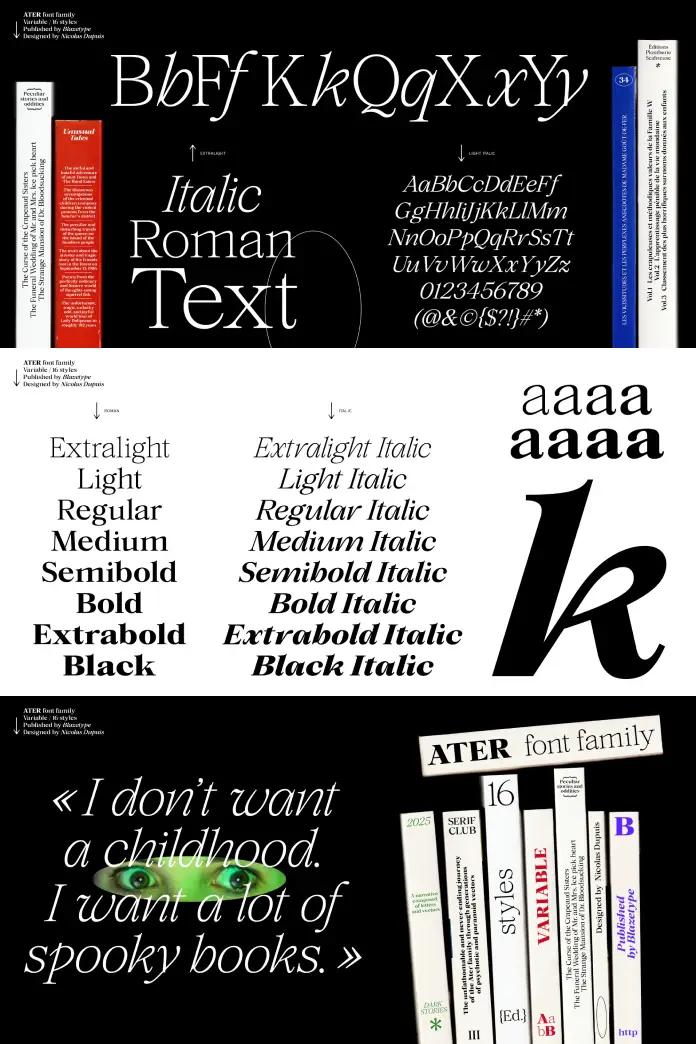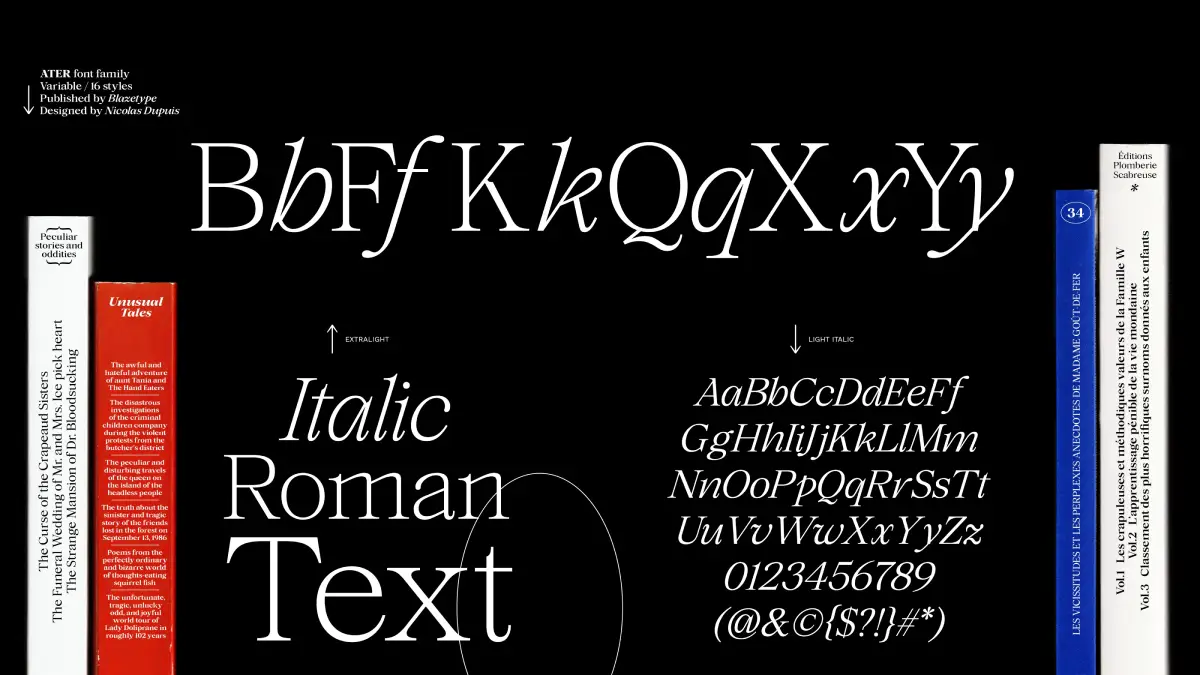
Let’s explore why the Ater font family, a variable serif typeface, works so well for modern editorial design.
Nicolas Dupuis understood the power of ink when he created the Ater font family. Black ink defines the character of every printed page. Blaze Type released this typeface to solve a specific problem in graphic design. Designers often struggle to find a system that works for both loud posters and quiet pocketbooks. The typeface bridges this gap with remarkable elegance. It refuses to choose between classic serif tradition and modern display aggression. Instead, this typeface inhabits the ambiguity between the two styles. This article examines the technical and aesthetic reasons why the Ater font family deserves attention.
What distinguishes the Ater font family from other serif typefaces?
Most serif typefaces pick a side. They either serve as invisible text faces or demand attention as display fonts. However, the Ater font family rejects this binary limitation. Nicolas Dupuis designed the forms to adapt seamlessly across different media formats. A designer can use the same font file for a billboard or a novel. Consequently, this versatility simplifies the design process significantly. The family unites different media through consistent, evolving forms.
The name itself reveals the designer’s intent. “Ater” translates to “matte black” in Latin. This creates a poetic connection to the printing process. The Ater font family does not hesitate to fill a white page with heavy darkness. It embraces the density of ink. Therefore, the typeface feels grounded and physical, even on digital screens.
Mastering the variable axis for optimal contrast
Variable font technology powers the flexibility of the typeface. The design includes an approach to “blackening” the letters that changes their fundamental character. Lighter weights display delicate features suitable for extended reading. Conversely, the heavier weights push the boundaries of legibility for stylistic impact. The typeface creates a playground of contrast between these finest and darkest styles.
Designers can manipulate this axis to fine-tune the “color” of a text block. A headline might require the extreme density of the Black style. Meanwhile, the body text breathes easily in Extra Light or Regular. This dynamic range opens up countless creative possibilities for layouts. The Ater font family creates visual tension that keeps the reader engaged.
How does Blaze Type ensure legibility across formats?
Blaze Type prioritizes functionality alongside aesthetics. The foundry ensured that the Ater font family performs well at any size. Small sizes require open counters and sturdy serifs to remain readable. Large sizes, however, demand tighter spacing and sharper details. The typeface manages this balance through its variable nature.
The typeface spans from Extra Light to Black. It goes to extremes to ensure optimal readability. Designers rarely find a serif that handles “matte black” density without becoming a blob. Yet, the typeface maintains character distinction even in its darkest forms. This reliability makes it a go-to choice for serious editorial work.
Analyzing the aesthetic ambiguity of Ater
A unique tension exists within the shapes of the Ater font family. It references classical serif structures but executes them with modern precision. This ambiguity allows the font to feel timeless yet contemporary. It fits a historical novel just as well as a brutalist art catalog. The typeface plays with reader expectations.
You might notice the sharp transitions in the stroke width. These high-contrast elements give the Ater font family a display quality even in text sizes. It adds a sparkle to the page. Nicolas Dupuis crafted these details to ensure the font never feels boring. Consequently, the typeface commands authority without shouting.
Why is the Ater font family essential for branding?
Brands today need consistent voices across fragmented channels. A company uses a website, an app, printed stationery, and large-scale advertising. The typeface unifies these touchpoints. Its wide range of weights provides a diverse tonal palette within a single family. Therefore, a brand can whisper, speak, and shout using only the Ater font family.
Blaze Type distributes this font with modern licensing in mind. They understand that designers need flexible tools. The typeface supports this need for adaptability. It functions as a comprehensive design system rather than just a collection of letters. This systemic approach adds significant value for creative directors.
The technical excellence of Nicolas Dupuis
Nicolas Dupuis brings a rigorous standard to type design. His work on the Ater font family demonstrates a deep understanding of optical sizing. Every curve serves a purpose. He did not simply thicken the lines to create bold weights. Instead, he reimagined how the letterforms occupy space. This attention to detail elevates the typeface above standard retail fonts.
The Latin “matte black” concept guides every decision. Dupuis treats the positive space (the letter) and negative space (the background) with equal importance. The typeface shapes the white space as much as it lays down the black ink. This creates a rhythmic texture on the page that pleases the eye.
Can I use the Ater font family for large posters?
Absolutely. The typeface was specifically created to handle display applications. The high-contrast styles and heavy “Black” weights create a strong visual impact on large formats.